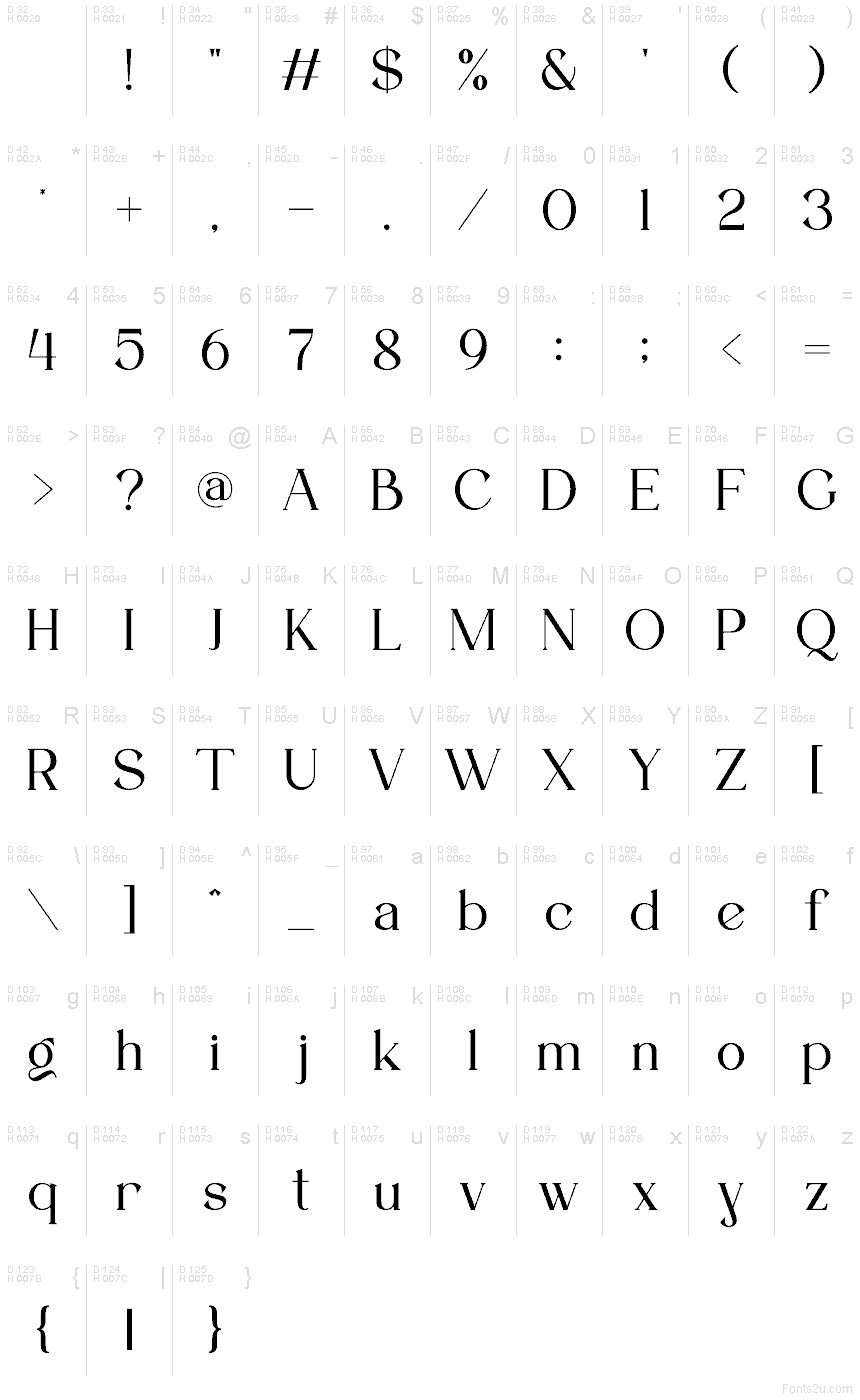
Sayora
Sayora font by ErmediaStudio 2025 is a free high-contrast display serif font. It stands out with razor-fine hairlines, inky wedge serifs, and a graceful calligraphic tilt that sends the strokes swooping and tapering like a nib on smooth paper. Big open counters and sculpted terminals give it a luxe, editorial snap.
Using Sayora, headlines and wordmarks lock in with a confident rhythm that reads crisp at large sizes. This free font shines on beauty branding, fashion lookbooks, boutique logos, magazine covers, luxury packaging, and wedding stationery. For balance, pair Sayora with a neutral sans and add a touch of tracking for headlines.